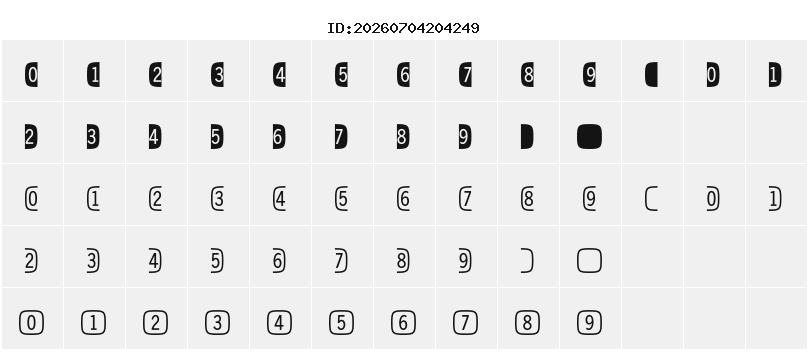
• Font Name: DoubleDigits SuperSquare
About DoubleDigits SuperSquare.otf
DoubleDigits SuperSquare.otf is a modern, elegant sans-serif font designed for ultimate readability and visual harmony. Perfect for branding, headlines, web design, and print materials.